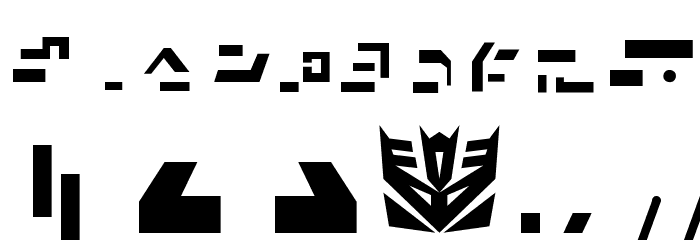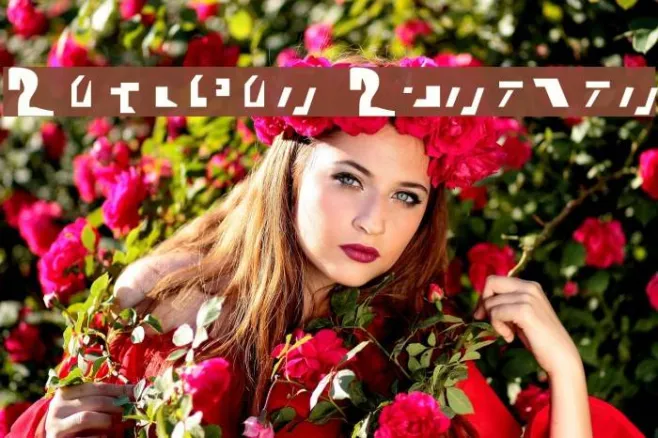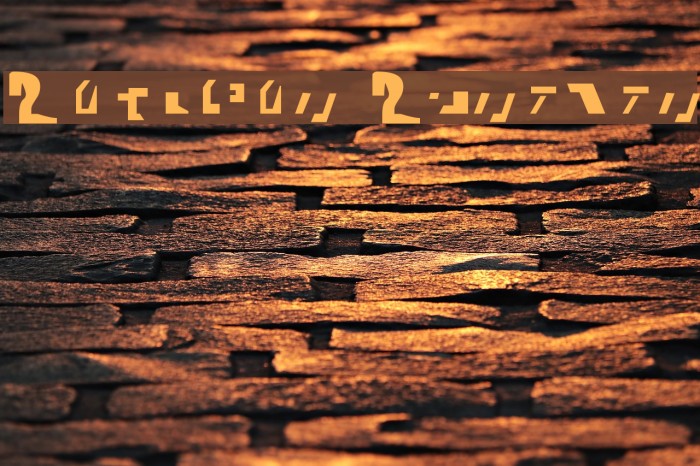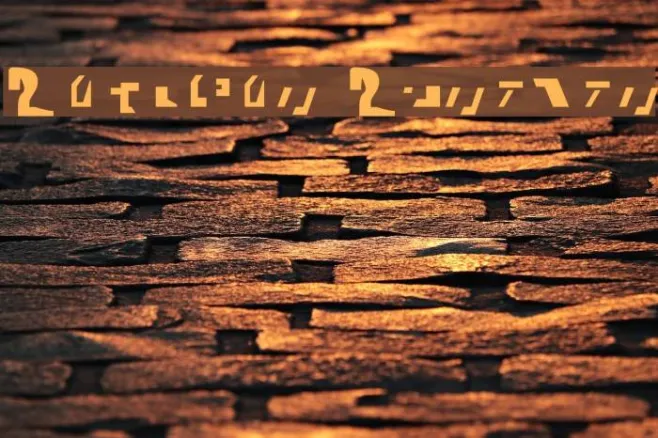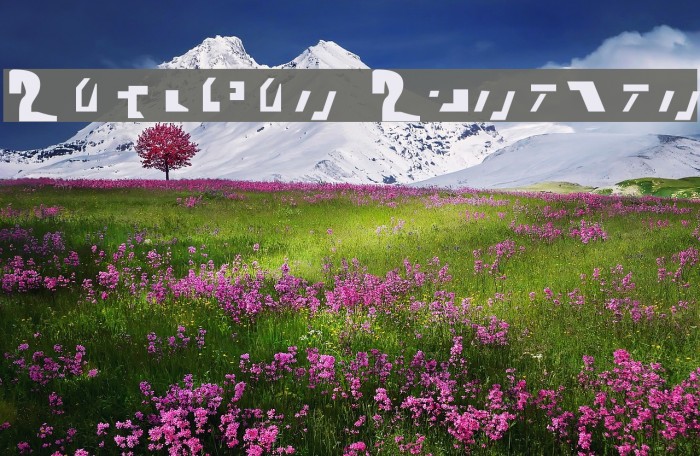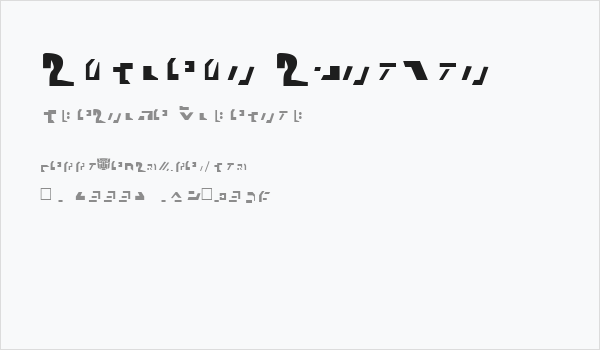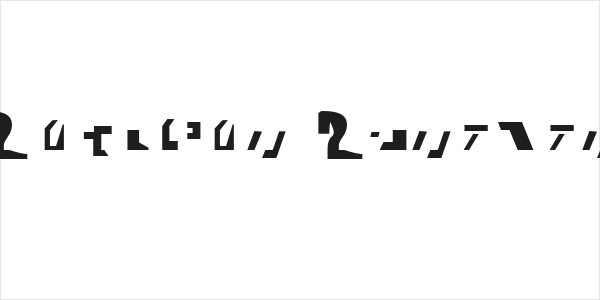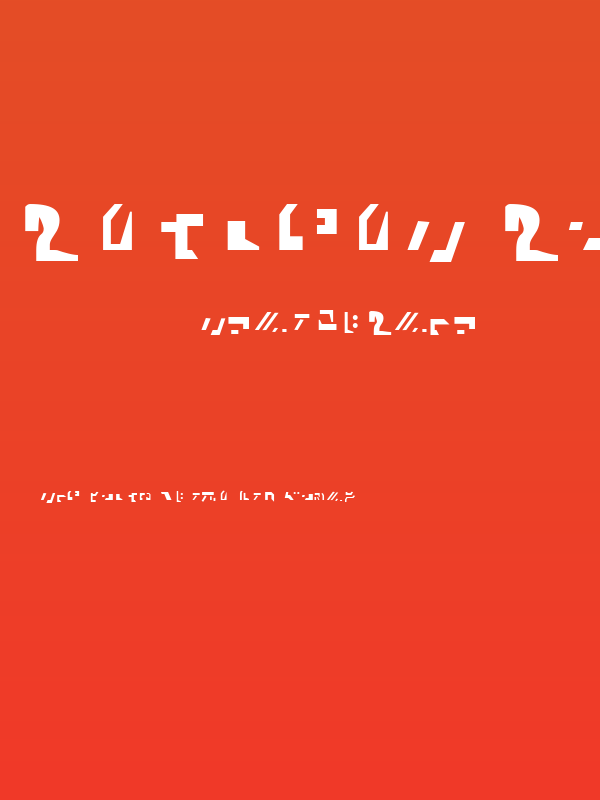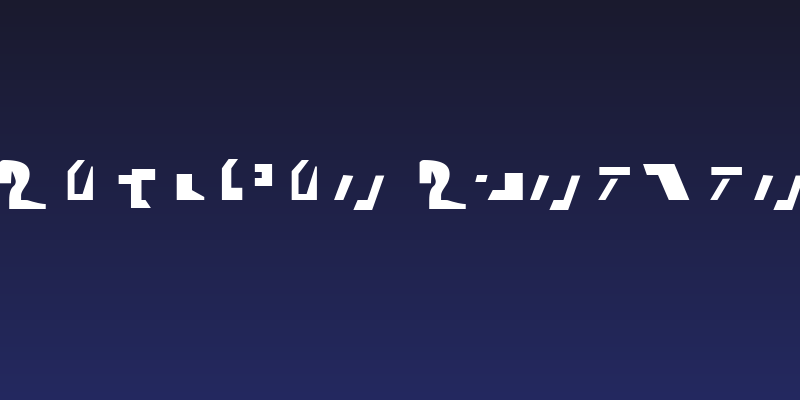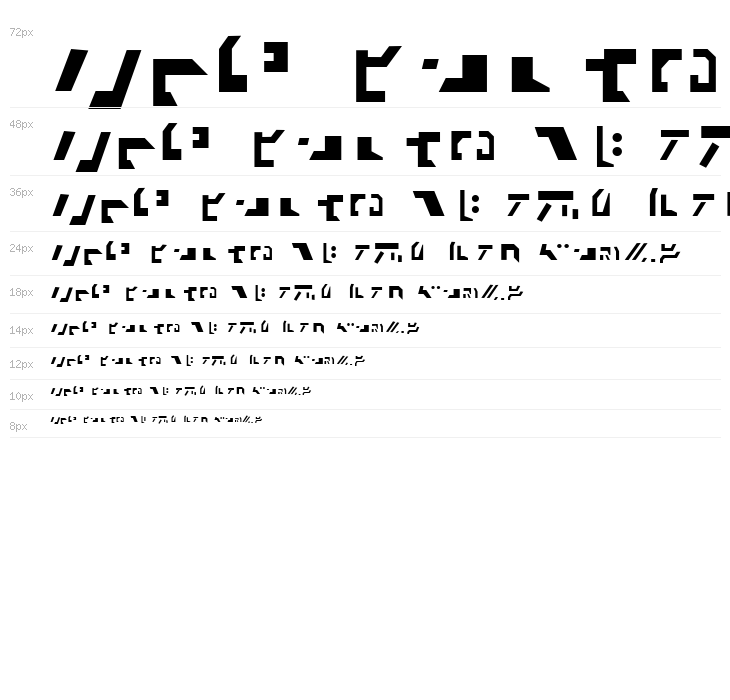
Ancient Autobot Font
Ancient Autobot Description
This font features a futuristic and angular design, reminiscent of ancient scripts with a modern twist. The characters are composed of sharp, geometric shapes, giving it a robotic and mechanical feel. The strokes are bold and consistent, with a uniform thickness that adds to its strong visual impact. The font's unique style makes it stand out, with each letterform appearing as a distinct symbol. The overall appearance is both enigmatic and powerful, suitable for projects that require a sense of mystery and advanced technology.
| Overall Style | Futuristic, Robotic |
| Proposed Projects | Ideal for sci-fi themed projects, video game titles, movie posters, or branding for tech companies. |